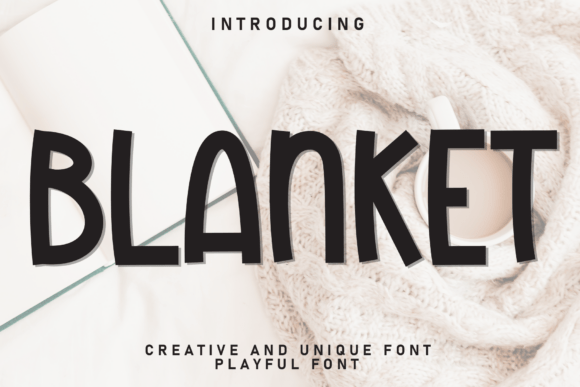
Introducing Blanket Font: The Ultimate Display Font for Warmth and Clarity
In the world of typography, fonts play a crucial role in conveying messages, expressing emotions, and creating lasting impressions. When it comes to display fonts, the options can be overwhelming, but one font that stands out from the rest is Blanket Font. Designed to bring warmth and clarity to your projects, Blanket Font is a casual and neat display font that is perfect for branding, headlines, and everyday designs.
What is Blanket Font?
Blanket Font is a thoughtfully crafted display font that boasts a clean structure and approachable style. Its balanced letterforms offer exceptional readability and charm, making it an ideal choice for designers, marketers, and businesses looking to create a lasting impact. Whether you’re working on a branding project, creating eye-catching headlines, or designing everyday materials, Blanket Font is the perfect companion.
The Characteristics of Blanket Font
So, what makes Blanket Font so special? Here are some of its key characteristics:
- Clean Structure: Blanket Font features a clean and simple structure that makes it easy to read and understand.
- Approachable Style: The font’s approachable style makes it perfect for creating a friendly and inviting atmosphere in your designs.
- Balanced Letterforms: The balanced letterforms in Blanket Font ensure that every message feels genuine and harmonious.
- Readability: The font’s exceptional readability makes it perfect for use in a variety of applications, from headlines to body text.
- Charm: Blanket Font’s charm lies in its ability to add a touch of warmth and personality to your designs.
Uses of Blanket Font
Blanket Font is a versatile display font that can be used in a variety of applications, including:
- Branding: Use Blanket Font to create a lasting impression with your brand’s logo, tagline, or marketing materials.
- Headlines: Create eye-catching headlines that grab attention and convey your message with clarity.
- Everyday Designs: Use Blanket Font in your everyday designs, such as brochures, flyers, posters, and social media graphics.
- Digital Media: Blanket Font is perfect for use in digital media, including websites, blogs, and email marketing campaigns.
Why Choose Blanket Font?
With so many display fonts available, why choose Blanket Font? Here are just a few reasons:
- Unique Style: Blanket Font offers a unique and refreshing style that sets it apart from other display fonts.
- Readability: The font’s exceptional readability makes it perfect for use in a variety of applications.
- Versatility: Blanket Font is a versatile display font that can be used in a range of applications, from branding to digital media.
- Ease of Use: The font is easy to use and works seamlessly with a range of design software.
Tips for Using Blanket Font
Here are some tips for getting the most out of Blanket Font:
- Use it with Confidence: Blanket Font is a bold and confident font, so use it with confidence to make a lasting impression.
- Experiment with Colors: Try pairing Blanket Font with a range of colors to create a unique and eye-catching effect.
- Mix and Match: Experiment with mixing and matching Blanket Font with other fonts to create a unique and harmonious design.
- Keep it Simple: Don’t be afraid to keep things simple with Blanket Font – its clean structure and approachable style make it perfect for use in simple, yet effective designs.
In conclusion, Blanket Font is a casual and neat display font that is perfect for bringing warmth and clarity to your projects. With its clean structure, approachable style, and balanced letterforms, it’s an ideal choice for branding, headlines, and everyday designs. Whether you’re a designer, marketer, or business owner, Blanket Font is a versatile and effective font that is sure to make a lasting impression.
- What is Blanket Font? Blanket Font is a casual and neat display font designed to bring warmth and clarity to your projects.
- What is Blanket Font used for? Blanket Font is perfect for use in branding, headlines, and everyday designs.
- Is Blanket Font easy to read? Yes, Blanket Font features exceptional readability, making it perfect for use in a variety of applications.